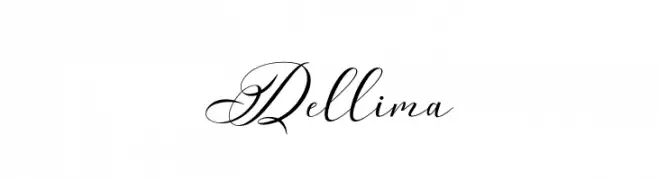
( Pathero Studio - www.patherostudio.com )
An elegant, swash-filled decorative font with a calligraphic style.
( Picatype Studio - creativemarket.com/picatype )
An elegant and sophisticated script font with flowing, cursive letters.
( Pointlab Studio - creativemarket.com/pointlab )
An elegant and flowing script font with ornate, cursive characters.
( PutraCetol Studio - Putra Novembria Candra Kusuma - creativemarket.com/putracetol )
An elegant script font with flowing, interconnected letters and elaborate swashes.
( Rachma BT - bit.ly/bonjourtype )
An elegant script font with intricate flourishes and a sophisticated style.
( Rahmat Hidayat )
An elegant, flowing script font with intricate, decorative letterforms.
( Rahmat Hidayat )
An elegant, cursive font with intricate loops and swirls.
( Roch Art )
An elegant script font with flowing, interconnected letters and ornate flourishes.
( Roiyani Teungku - creativemarket.com/artisans )
An elegant, flowing script font with ornate, interconnected characters.
( Roland Huse Design - Roland Huse - rolandhuse.com )
A flowing, cursive script font with elegant, interconnected letters.
( Sean Dalton - seandalton.com.au )
An elegant script font with intricate swirls and flourishes, perfect for sophisticated designs.
( Siwox Studios - bit.ly/saffatinmyfonts )
An elegant script font with flowing, interconnected letters and delicate swashes.
( Sronstudio - Yusron Billah )
An elegant, cursive font with flowing, interconnected letters and dynamic contrast.
( Syahputra - creativemarket.com/Bexxtype )
An elegant script font with flowing, cursive letters and high contrast.
( Syahputra - creativemarket.com/Bexxtype )
An elegant script font with flowing, interconnected letters and decorative swashes.
( Thirtypath - www.thirtypath.com )
An elegant script font with intricate swashes and flowing letterforms.
( Thirtypath - www.thirtypath.com )
An elegant script font with intricate flourishes and a refined, flowing style.
( Typhoon Type - Suthi Srisopha - www.typhoontype.net )
An elegant script font with intricate swashes and high contrast, perfect for formal and artistic uses.
( Typhoon Type - Suthi Srisopha - www.typhoontype.net )
An elegant script font with flowing cursive letters and intricate swashes.
( Typodermic Fonts - Ray Larabie - www.typodermicfonts.com/ )
A sleek, italic font with elongated, narrow characters and a modern style.
( Vladimir Nikolic - www.coroflot.com/vladimirnikolic )
Elegant serif font with high contrast and sharp serifs.
( Vladimir Fedotov )
An elegant script font with intricate swirls and decorative flourishes.
( Vladimir Fedotov )
A sophisticated, elegant handwritten font with a cursive style.
( Wacaksara Co - www.wacaksara.co )
An elegant and flowing script font with classic cursive letterforms.
( Woodcutter - woodcutter Manero - www.woodcutter.es )
An ornate, decorative font with baroque-inspired detailing.